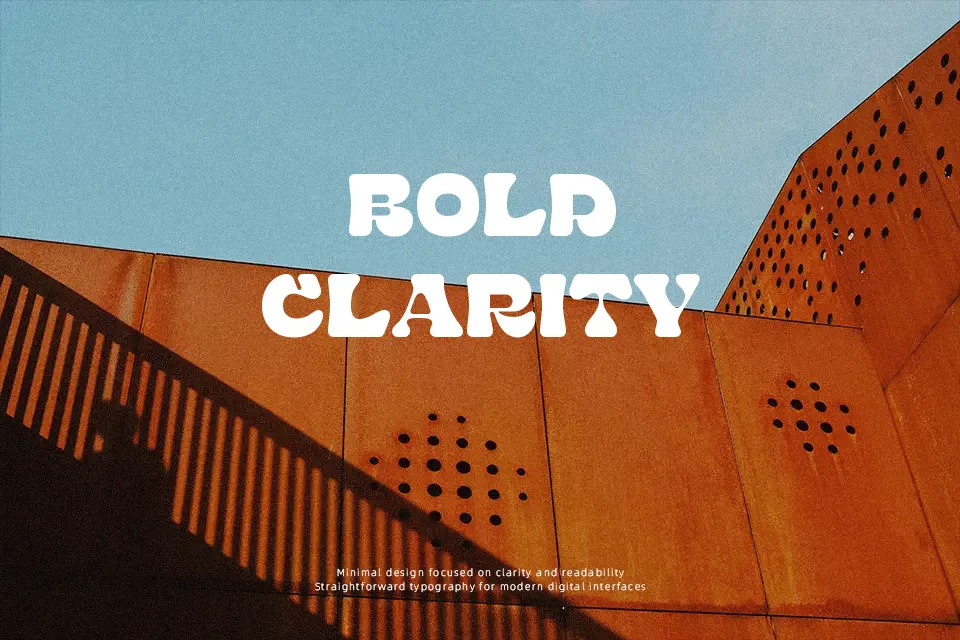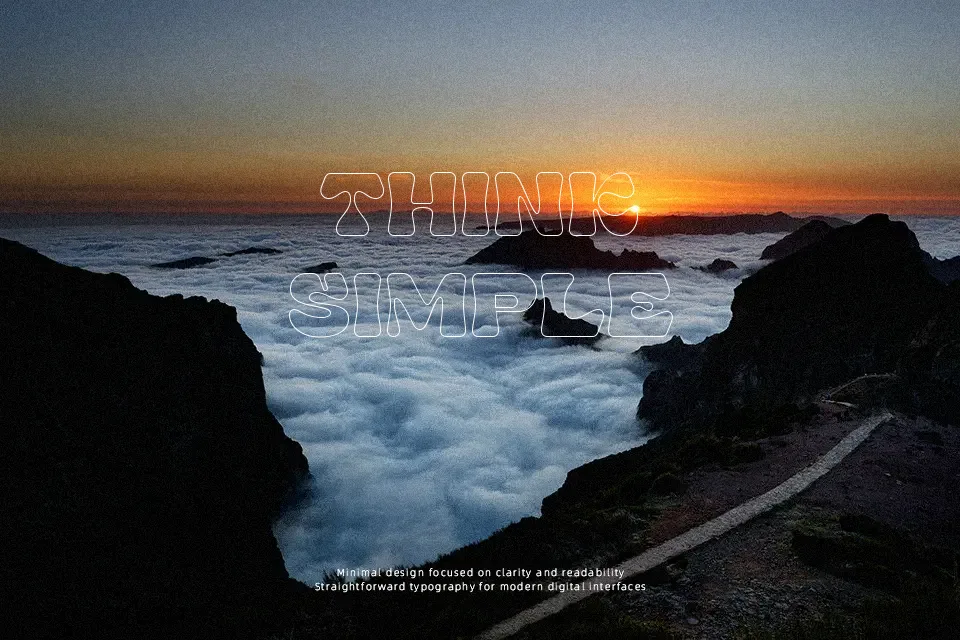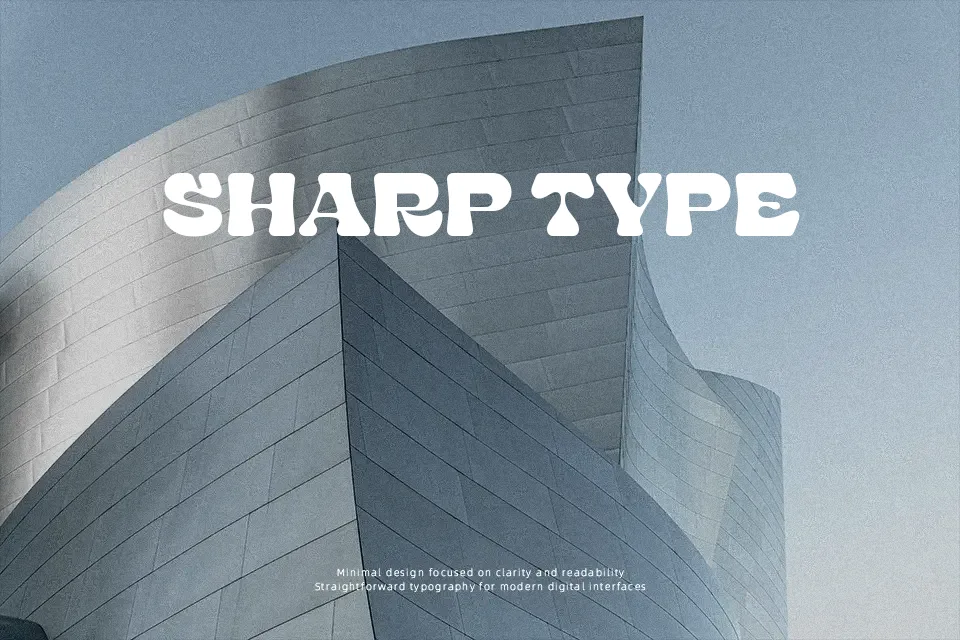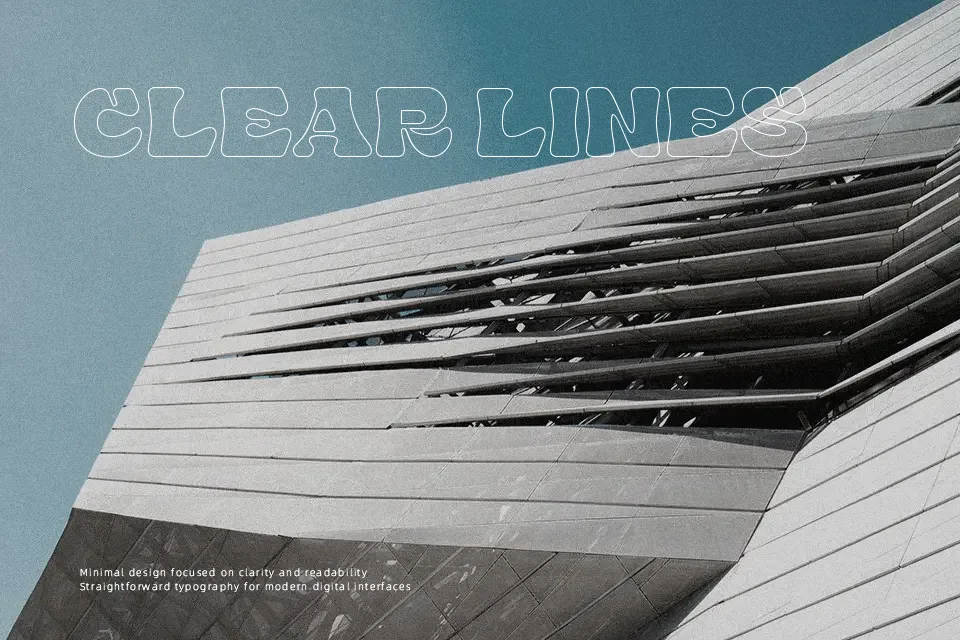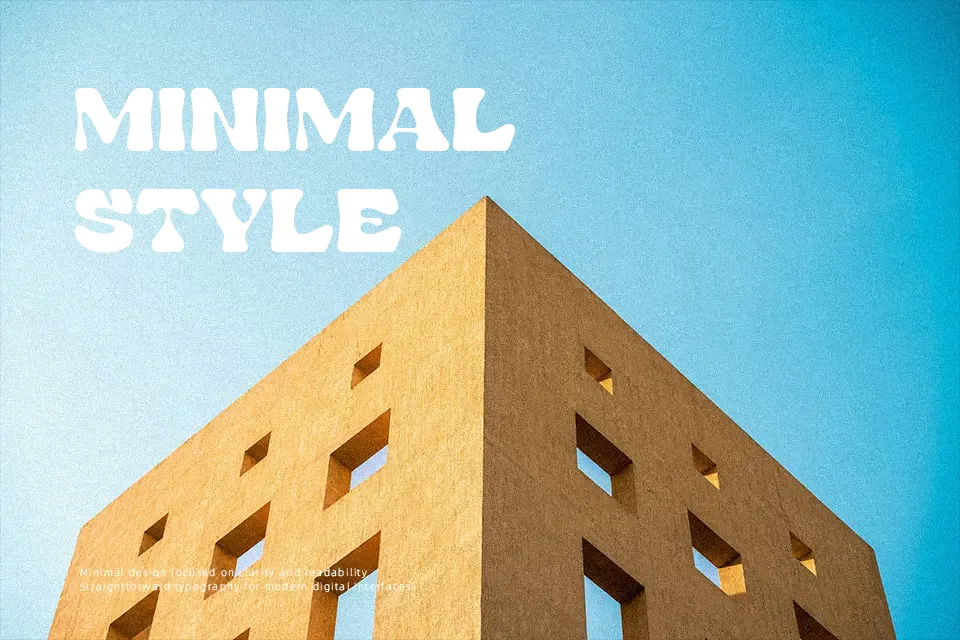
Stora Font
Stora Font uses wide, weighty letterforms with rounded curves, soft terminals, and a compact, display-led rhythm. The uppercase characters appear especially forceful, while the lowercase maintains the same broad, cohesive construction. Its thick strokes and generous proportions make short words easy to notice in posters, labels, and prominent branding applications. Spacing works best when the type is given room to sit at larger sizes rather than packed into dense lines. The design has clear visual presence in headlines, but its wide forms and decorative weight make it less comfortable for small copy or sustained reading.
Best For: retro product packaging,poster headlines,logo lockups,apparel graphics